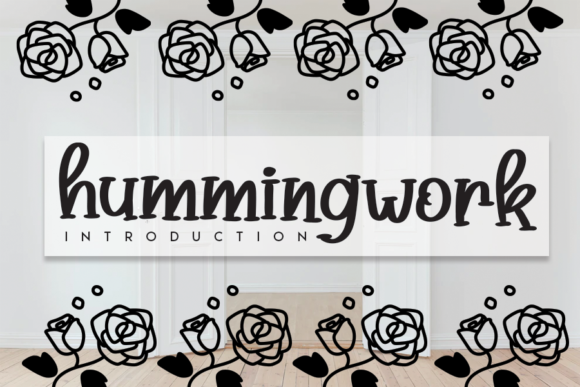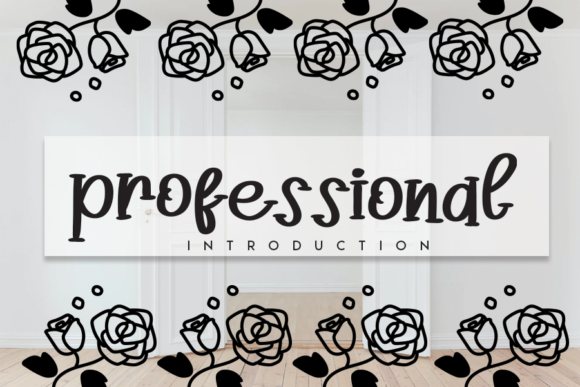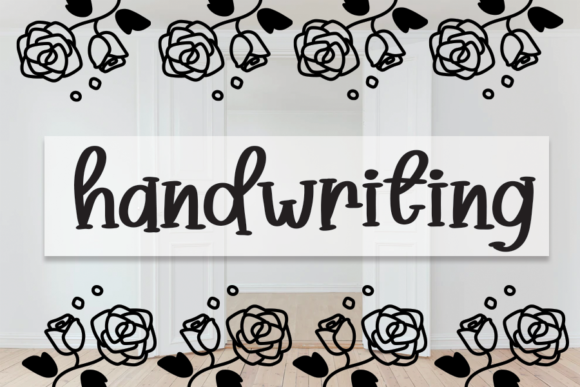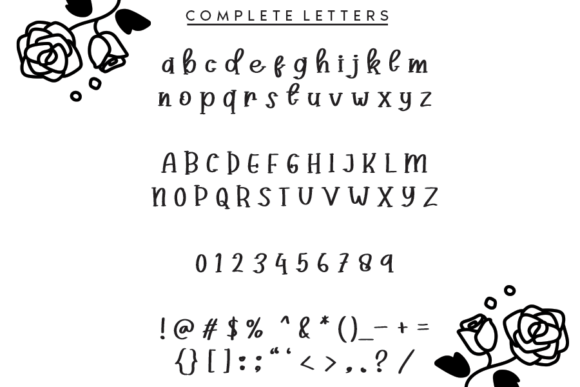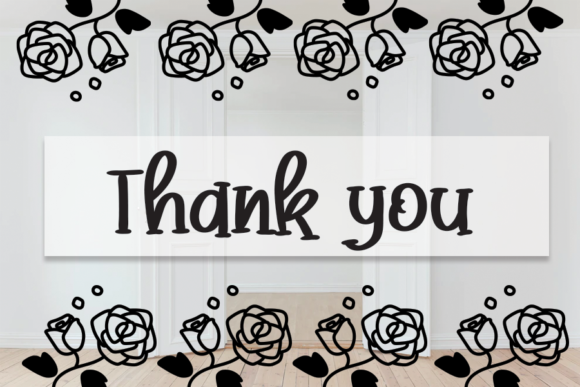
Hummingwork Font
About Hummingwork Font
Hummingwork is a simple and neat lettered handwritten font. It fits both formal and non-formal designs, so add it to your most creative ideas and notice how this font makes them stand out!